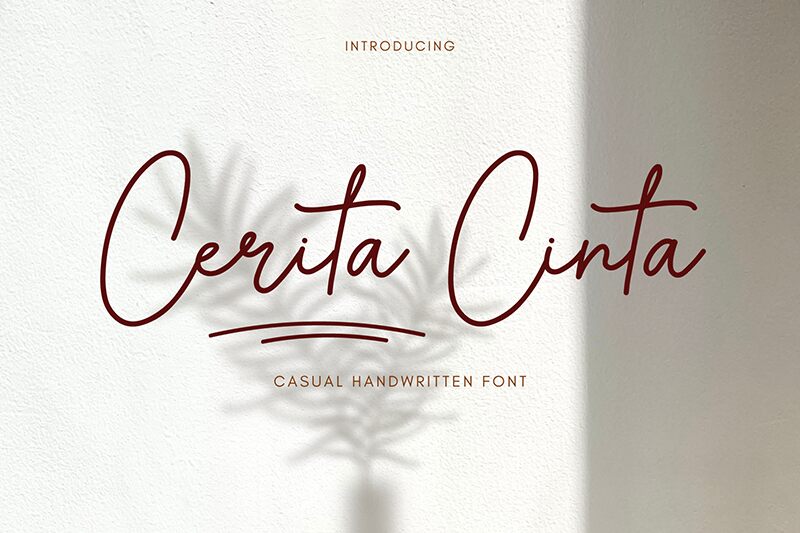
Cerita Cinta font by Ibrahima Studio is a beautiful, free handwritten font inspired by hand-drawn type. This elegant typeface is relaxed, fluid, and expressive, making it both playful and inviting. Use it to add a personal and exquisite touch to any graphic design project, especially those where handwritten text looks more appealing.
Inject a casual and informal spirit into your greeting cards, invitations, stationery, and posters using this font. Achieve the same impressive effect if you use the font on social media, branding, packaging, logotyped, and body and display text.